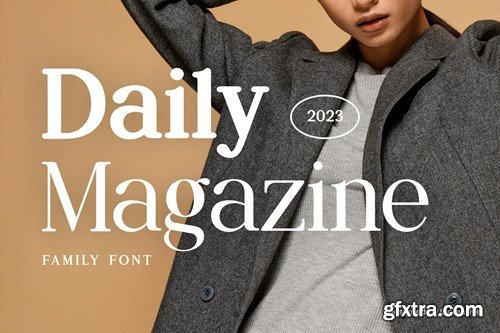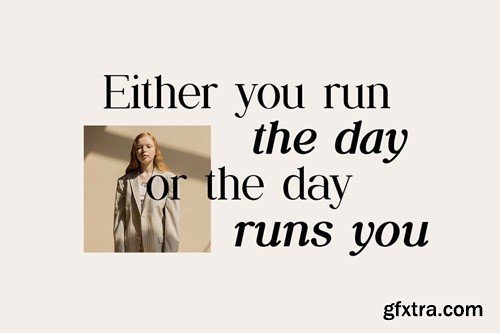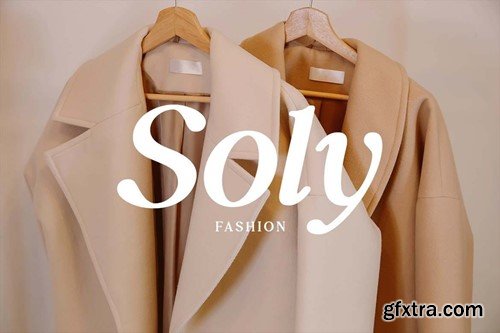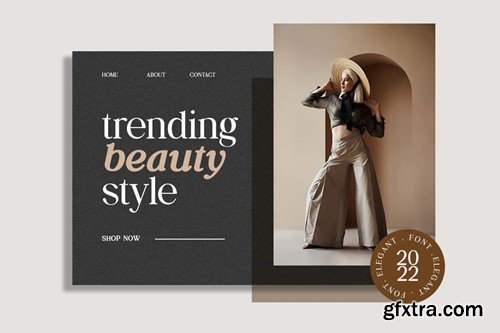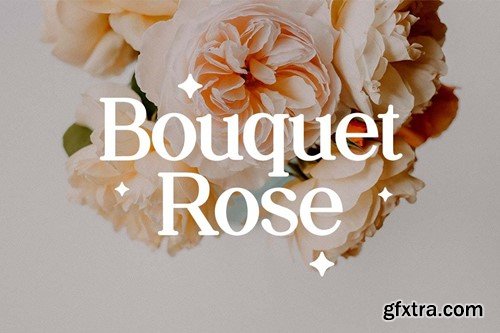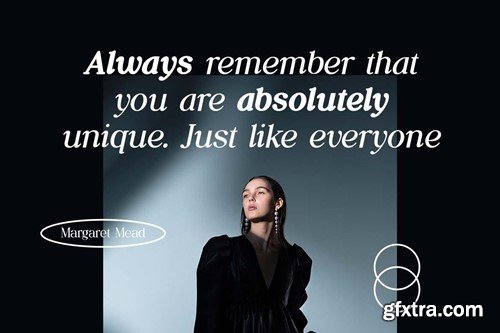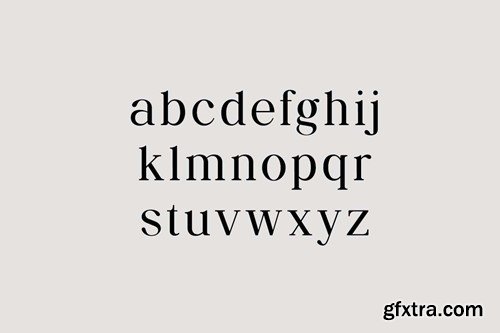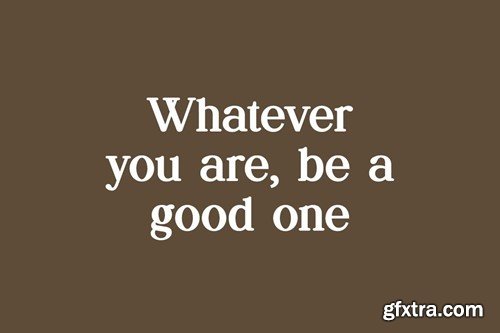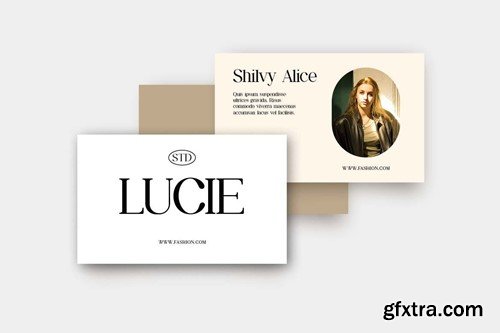
Daily Magazine Serif Display Font 5H5YKD8
Daily Magazine Serif Display Font
Introducing our new product the name is Daily Magazine Serif Display Font. Daily Magazine Serif Display Font that feels beautiful classy, elegant, and modern. This font is ideally suited for a wide variety of projects, such as signature, stationery, logo, wedding, typography quotes, magazine or book covers, website headers, clothing, branding, packaging design, and more. Also, fashion-related branding or editorial design displays both masculine and feminine qualities.